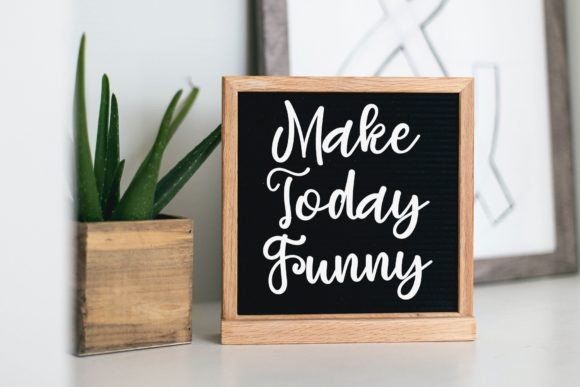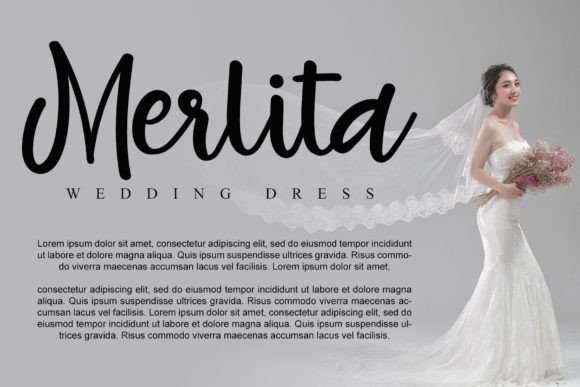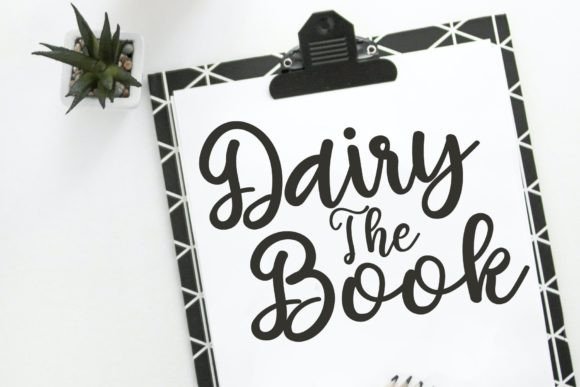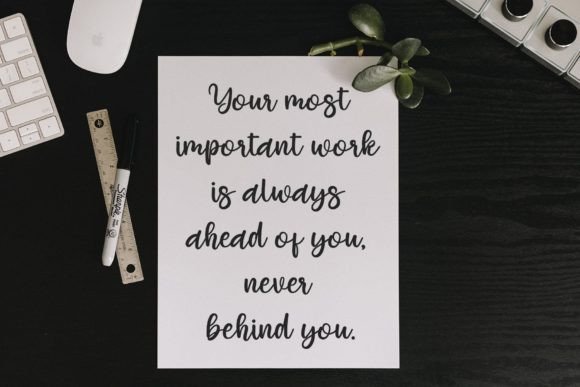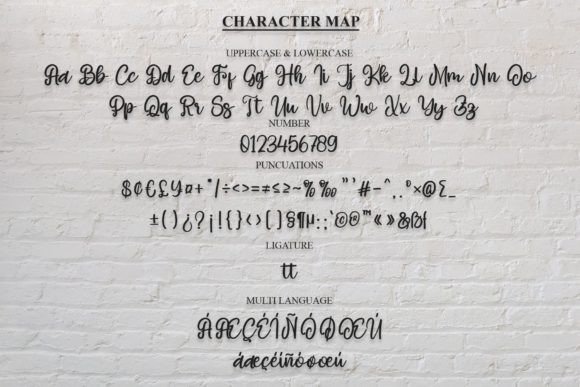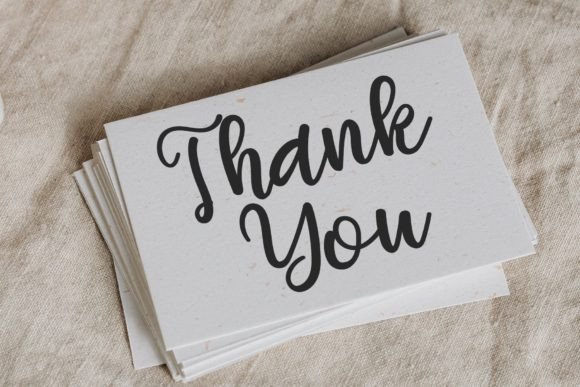
Faster Font
About Faster Font
“Faster” sounds like a fun and friendly handwritten font designed to infuse a sense of charm into creative projects. Fonts with these characteristics are often versatile and can bring a playful and engaging feel to various design contexts.
The description suggests that “Faster” is intended to turn creative project ideas into true standouts. Fonts with a fun and friendly vibe can contribute to the overall visual appeal and personality of a design.
Consider using “Faster” for a range of creative projects, such as headings, logos, ads, or any design element where a handwritten style with a touch of charm is desired. This font appears poised to inspire and bring a lively energy to your work.
Explore the unique charm of “Faster” and let it be a source of inspiration as you create lovely and standout designs. Fonts like “Faster” can play a key role in infusing personality and creativity into your projects.